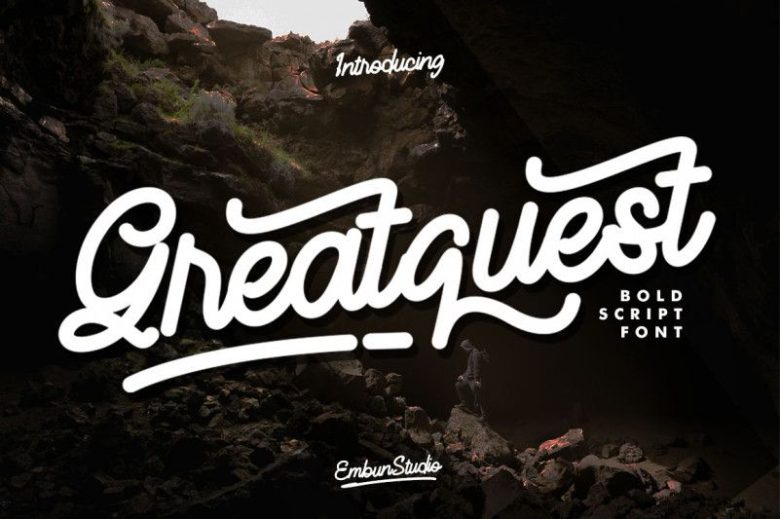
Greatquest Bold Script Font
Introducing a font work that is purely handwritten, has its own characteristics with the style. Flowing characters are ideal for making interesting messages, to fit your project.
It is called Greatquest Font. Greatquest Bold Script is bold script font, with a beautiful stylistic alternate, giver your project look more classy and friendly. Easy use alternate in every situation.
Perfect for invitations, signatures, blogs, social media, business cards, product brands.